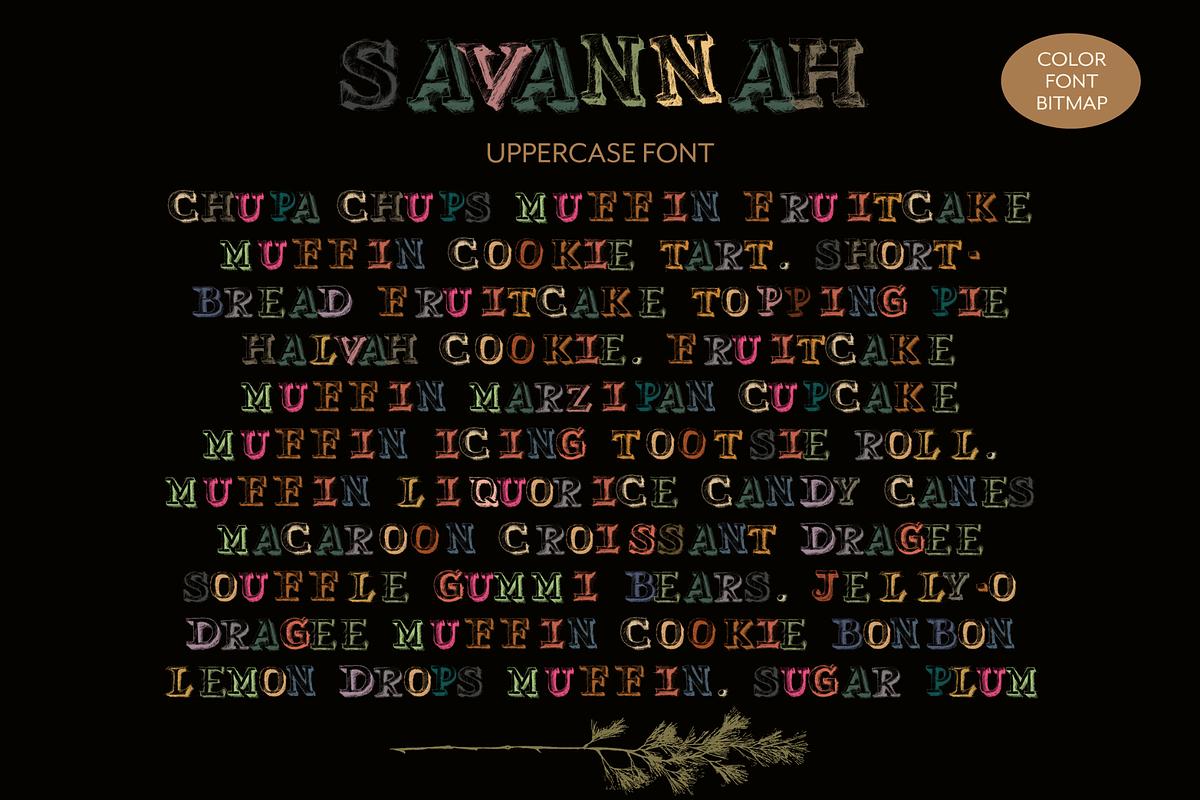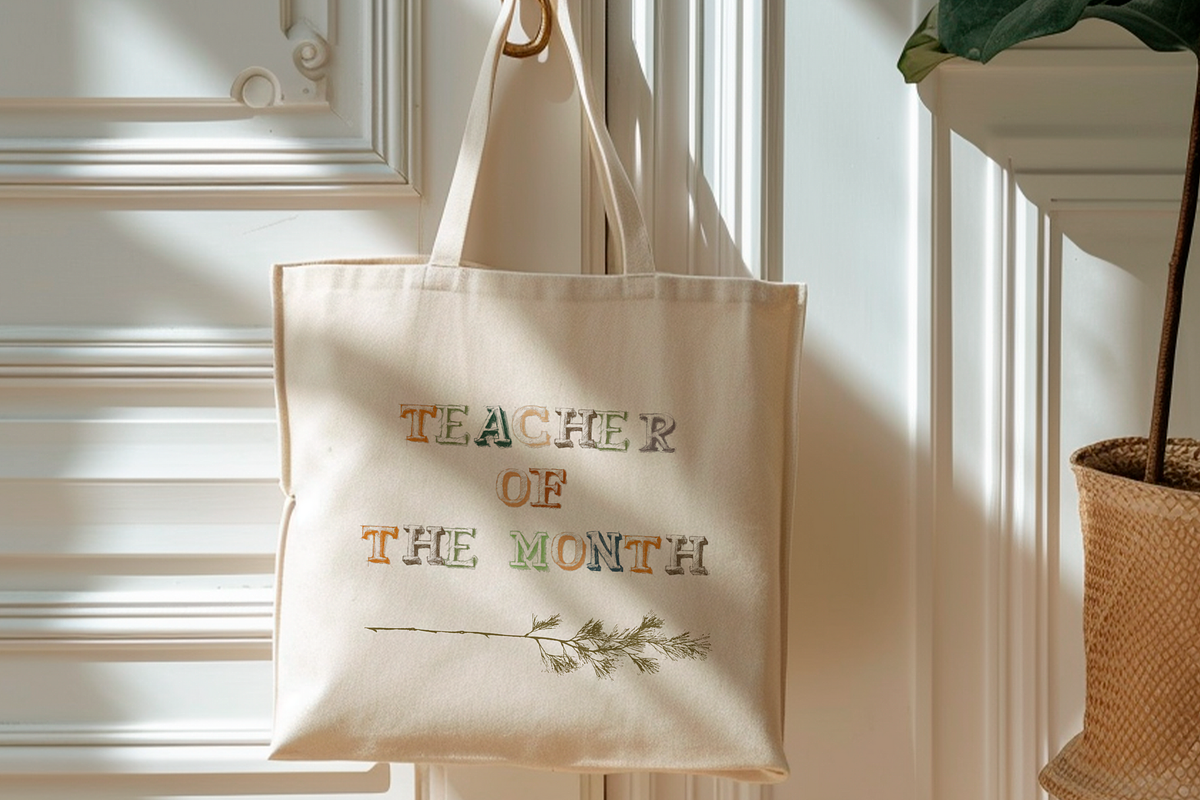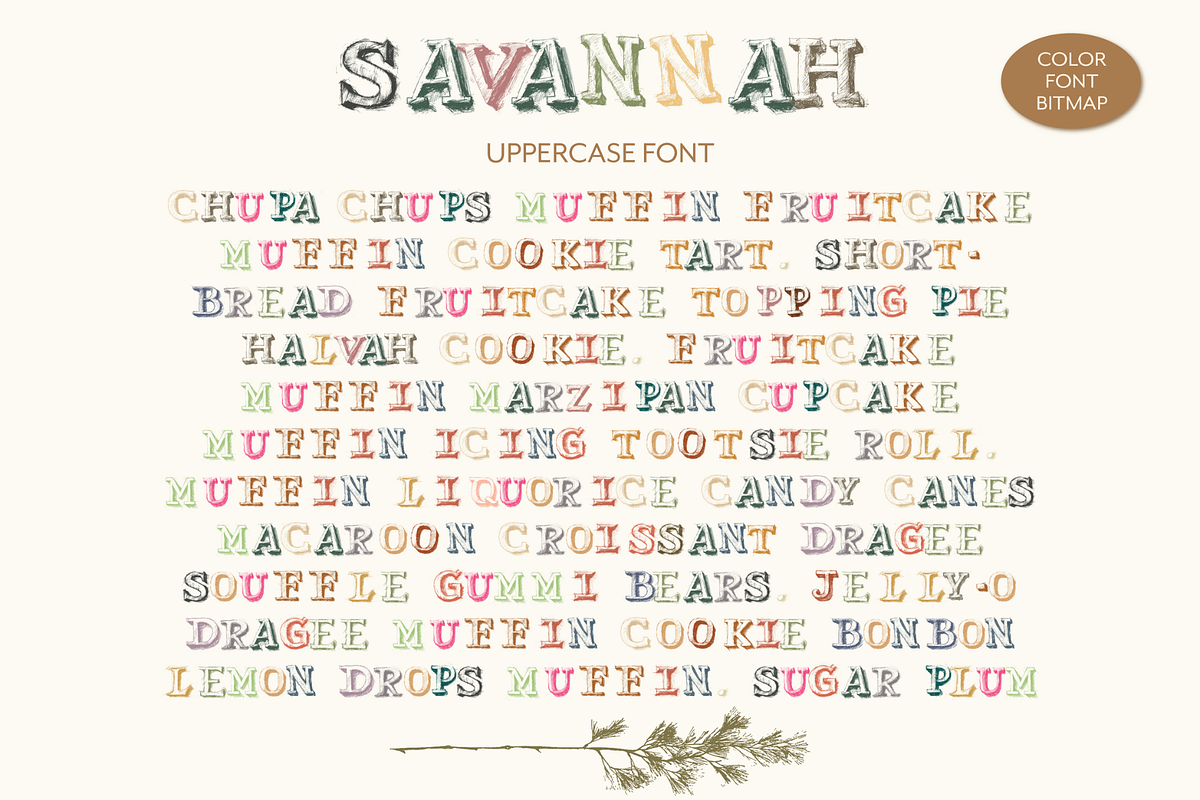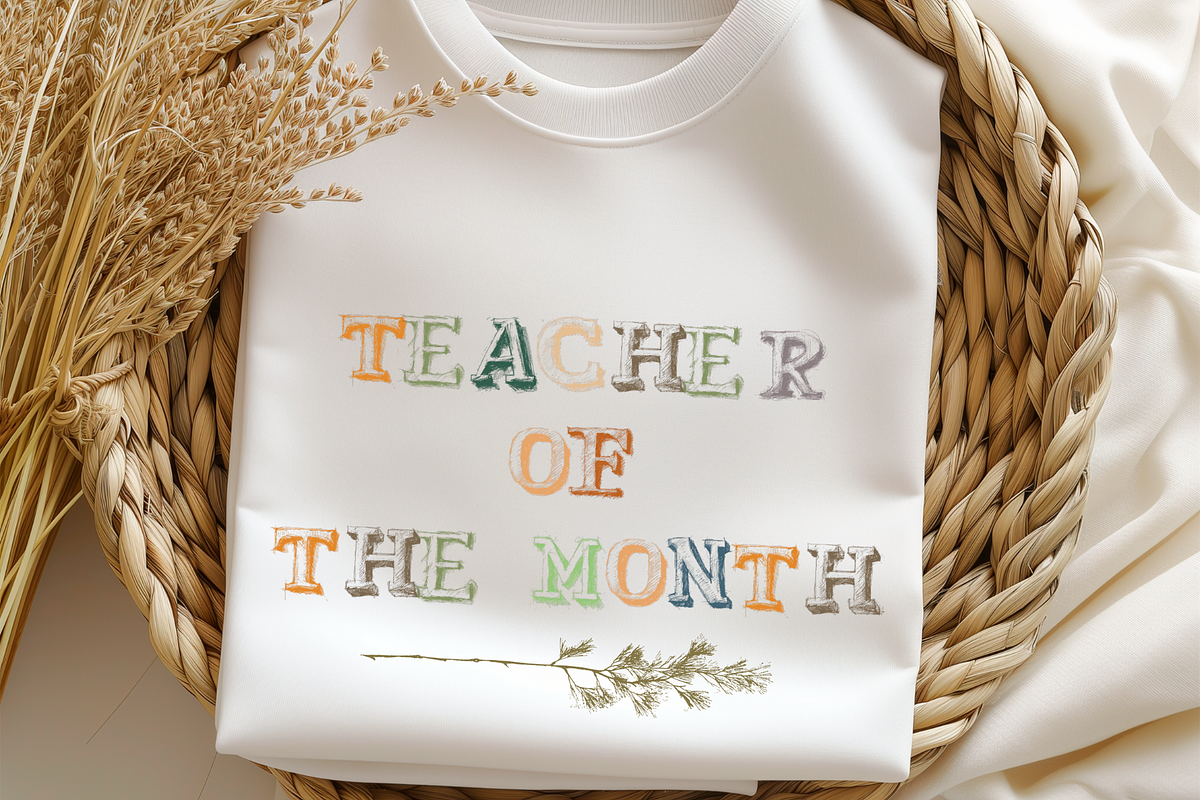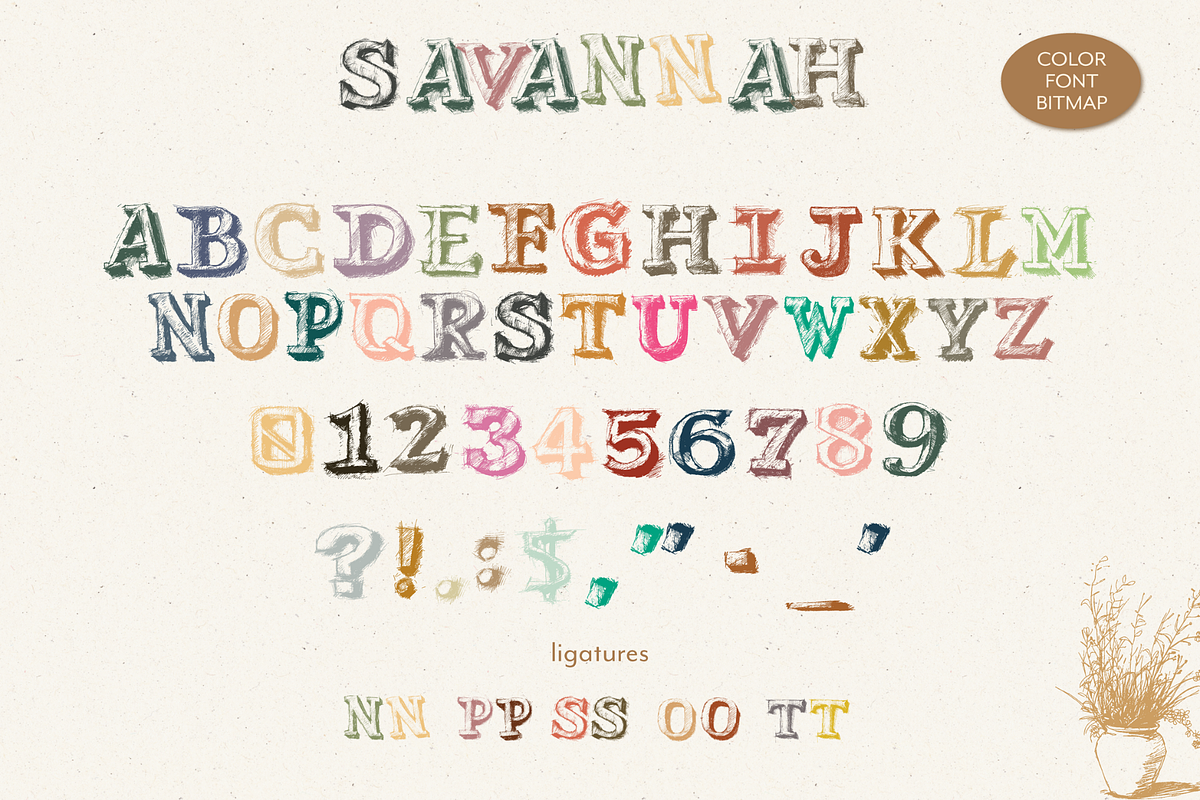
SAVANNAH! It's a Colour Font!
Introducing SAVANNAH – where playful charm meets artistic flair in the realm of typography. SAVANNAH is not your average font; it's a celebration of creativity and spontaneity, captured in every stroke of its fun rough pencil color design. Infused with a sense of whimsy and adventure, SAVANNAH invites you to unleash your imagination and add a dash of vibrant personality to your projects. Whether you're crafting invitations, posters, or playful branding materials, SAVANNAH promises to infuse your designs with an irresistible energy that will captivate and delight. Embrace the joy of expression with SAVANNAH and let your creativity roam wild and free.
THIS IS A FUN, IRREGULAR FONT WITH IRREGULAR SPACING! TAKE A LOOK AT THE EXAMPLE TEXT IN PICS!